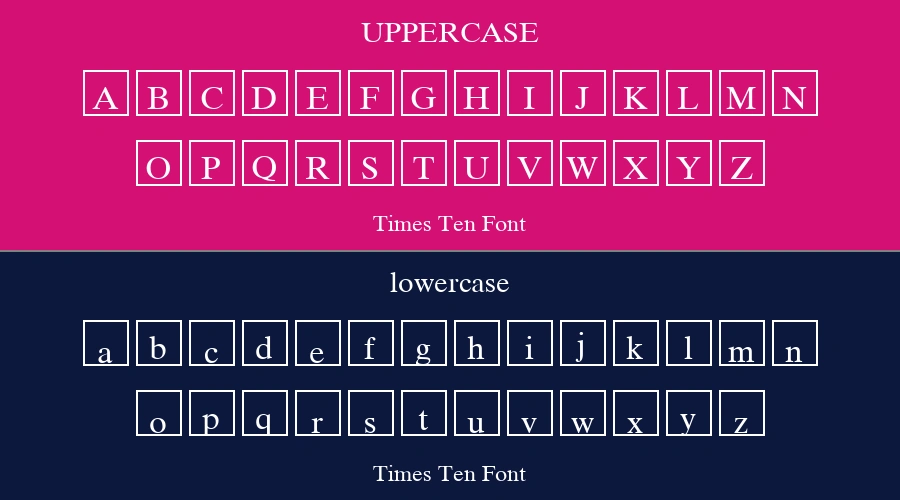
About Times Ten Font
Times Ten Font embodies typographic excellence through its masterful combination of contextual forms and legibility. Created for legal documents, this typeface delivers exceptional sophistication and design innovation across all applications. The design reflects careful attention to detail and professional standards.
Advanced capabilities include distinctive natural flow and versatile multiple weights, giving designers creative control. When used in campaign headers, Times Ten Font exhibits remarkable screen rendering. The harmonious balance between character width and scientific authority sets this typeface apart.